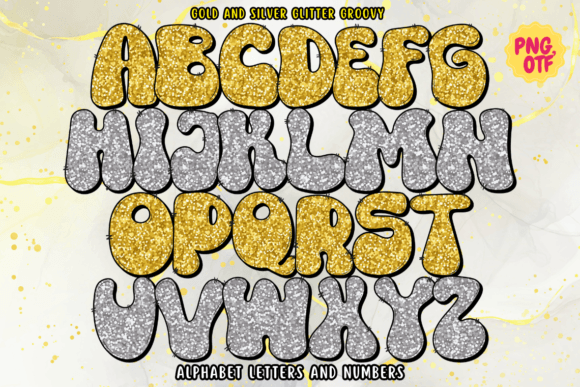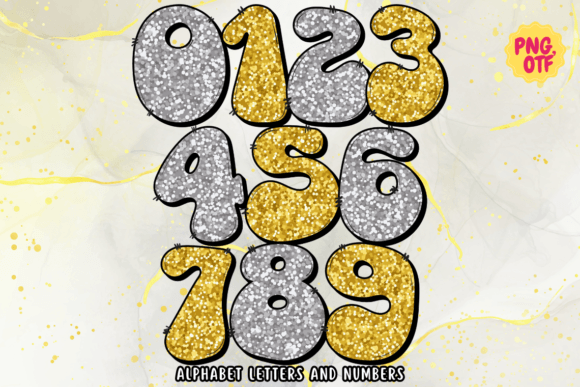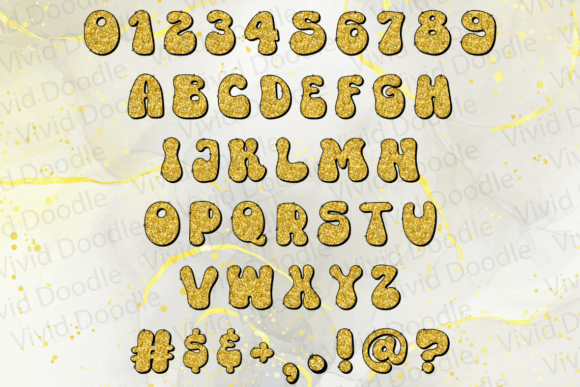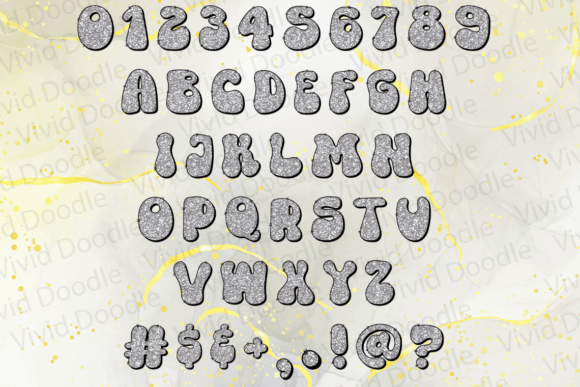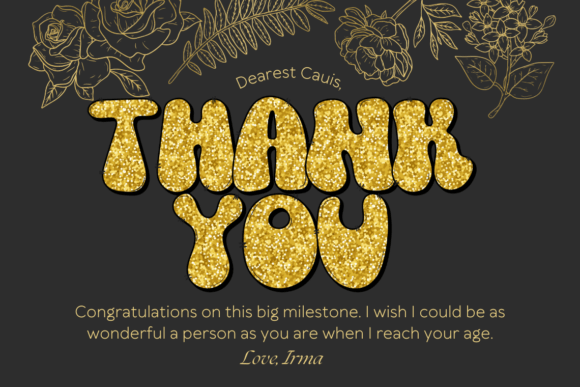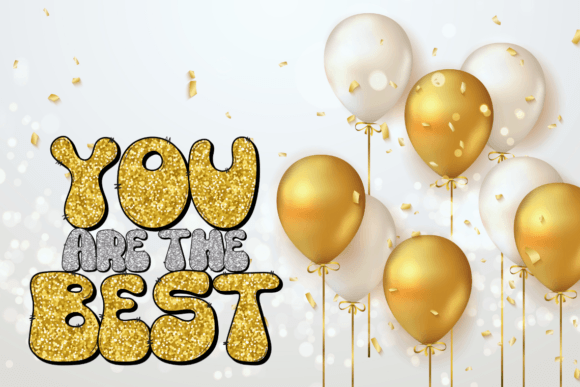
Unleash the Glamour: Gold and Silver Glitter Groovy Font
Are you looking for a font that adds a touch of luxury and celebration to your designs? Look no further than Gold and Silver Glitter Groovy, a typeface that combines the free-spirited essence of groovy design with the opulent shine of gold and silver glitter. This dazzling font is perfect for designers and crafters who want to add a bit of glamour and flair to their work.
What is Gold and Silver Glitter Groovy Font?
Gold and Silver Glitter Groovy is a unique and eye-catching font that blends retro vibes with a sparkling finish. This font is not just a simple typeface, but a color font (Opentype-SVG) that allows you to add a touch of luxury and celebration to your designs. With its chic and free-spirited essence, Gold and Silver Glitter Groovy is perfect for any project that calls for a bit of glamour and fun.
Perfect for Festive Occasions
Gold and Silver Glitter Groovy is ideal for graphic designs, party invitations, posters, and all sorts of festive occasions. Whether you’re creating event flyers, holiday cards, or decorative elements, this font will make your designs shimmer and shine with its eye-catching sparkle. Imagine adding a touch of glamour to your:
- Party invitations with gold and silver glittery text
- Holiday cards with festive and fun typography
- Event flyers with eye-catching and celebratory designs
- Decorative elements with luxurious and shiny text
Why Choose Gold and Silver Glitter Groovy?
There are many reasons why Gold and Silver Glitter Groovy is the perfect font for designers and crafters:
- Unique and eye-catching design: This font is unlike any other, with its gold and silver glittery finish that adds a touch of luxury and celebration to your designs.
- Retro vibes with a modern twist: Gold and Silver Glitter Groovy combines the free-spirited essence of groovy design with a modern and sleek finish.
- Perfect for festive occasions: This font is ideal for party invitations, holiday cards, and other festive designs that require a touch of glamour and fun.
Here are some tips and inspiration to help you get the most out of Gold and Silver Glitter Groovy:
- Experiment with different colors: While the font comes in gold and silver glittery finishes, you can experiment with different colors to match your brand or design style.
- Use it sparingly: Gold and Silver Glitter Groovy is a bold and eye-catching font, so use it sparingly to avoid overwhelming your design.
- Pair it with complementary fonts: Pair Gold and Silver Glitter Groovy with complementary fonts to create a unique and visually appealing design.
Gold and Silver Glitter Groovy is a unique and eye-catching font that adds a touch of luxury and celebration to your designs. With its retro vibes and modern twist, this font is perfect for designers and crafters who want to add a bit of glamour and flair to their work. Compatible with popular design software, Gold and Silver Glitter Groovy is easy to use and perfect for festive occasions. So why wait? Unleash the glamour and elevate your creative projects to a new level of brilliance with Gold and Silver Glitter Groovy!